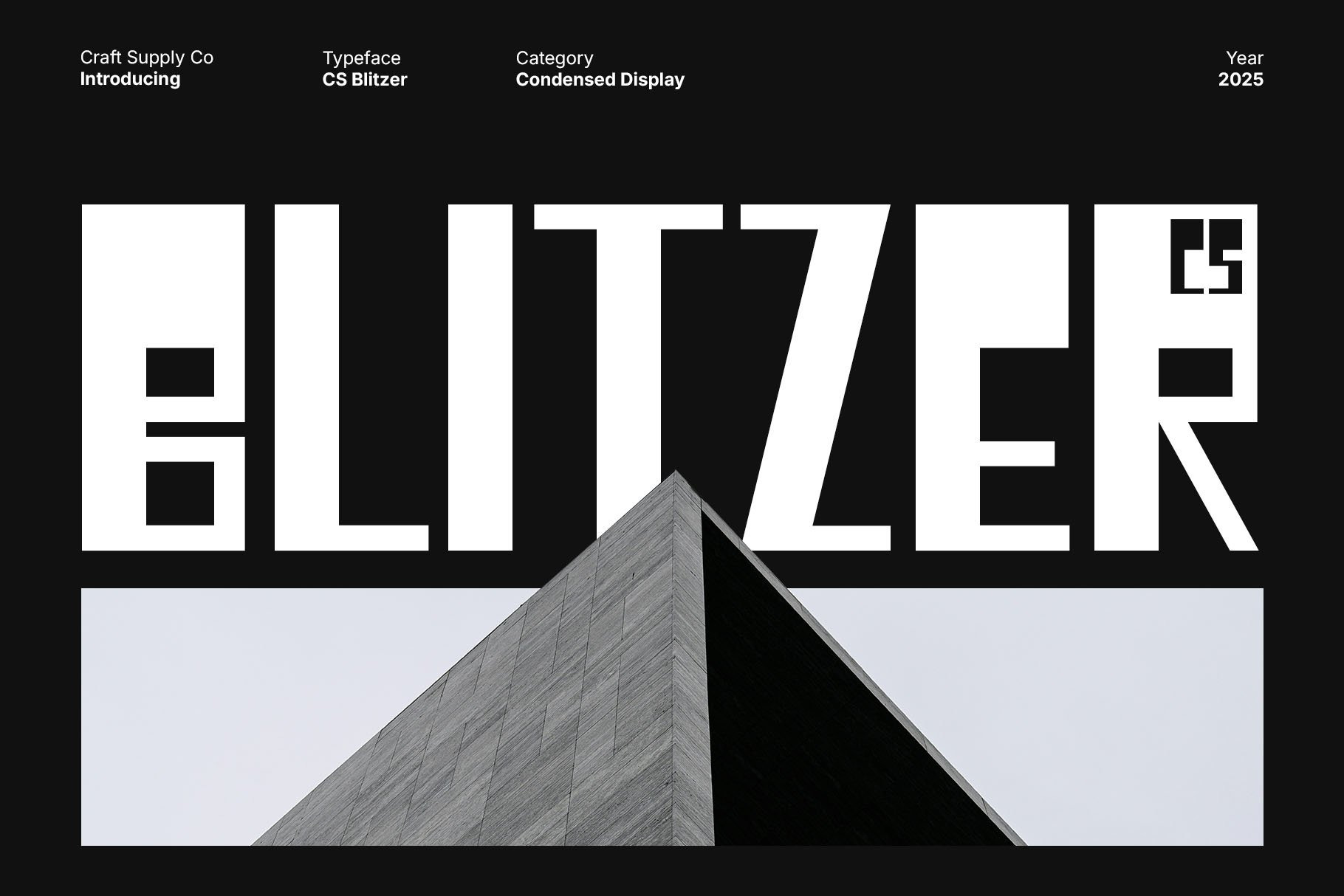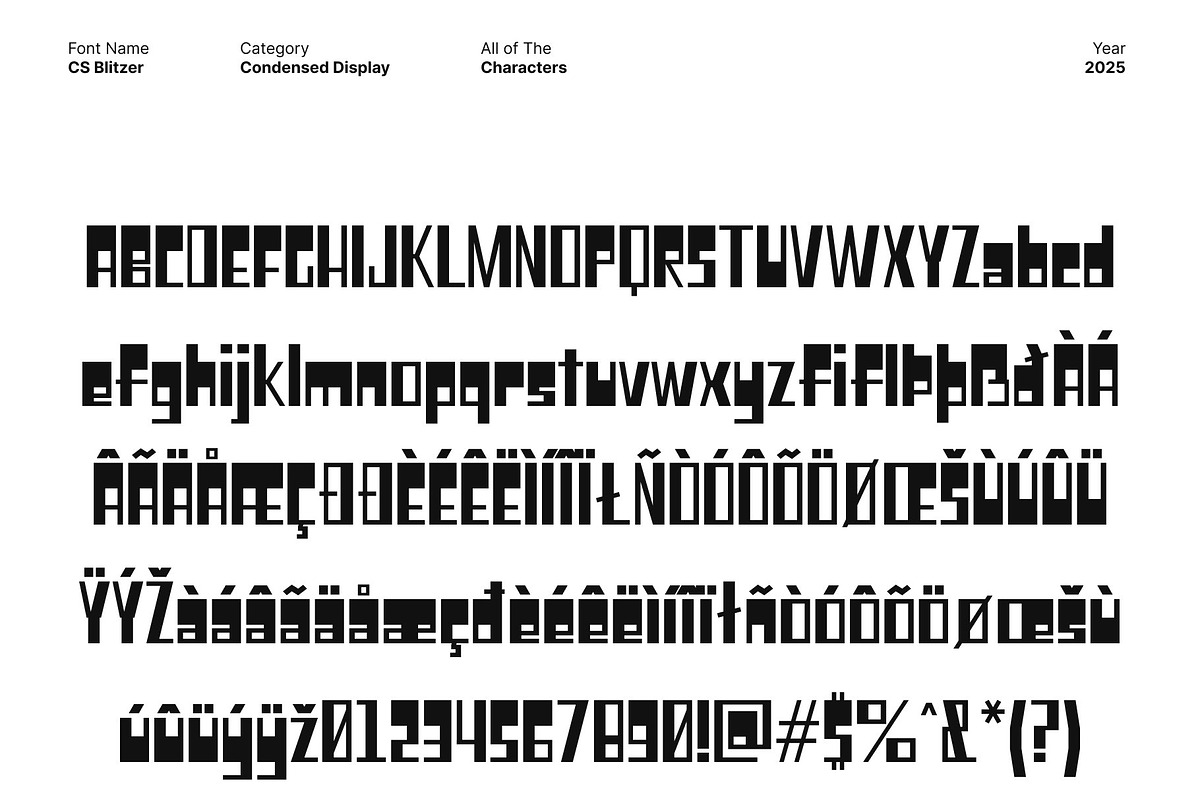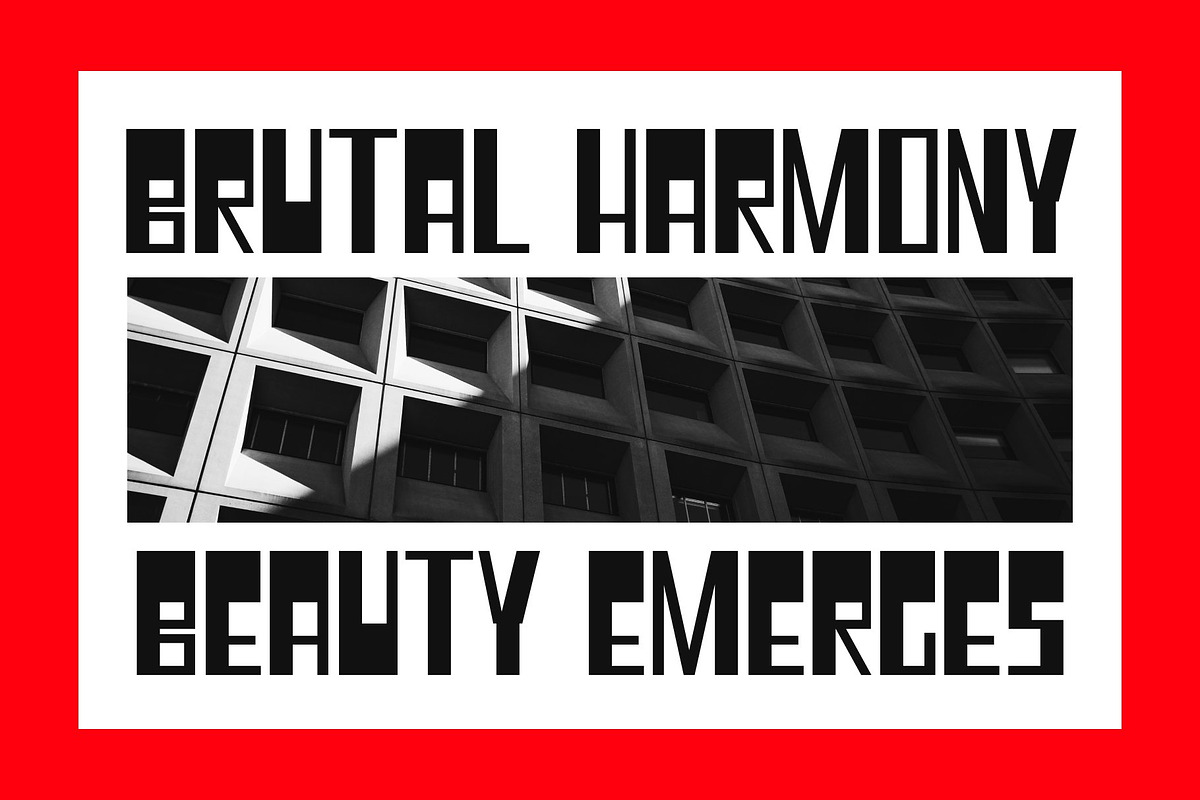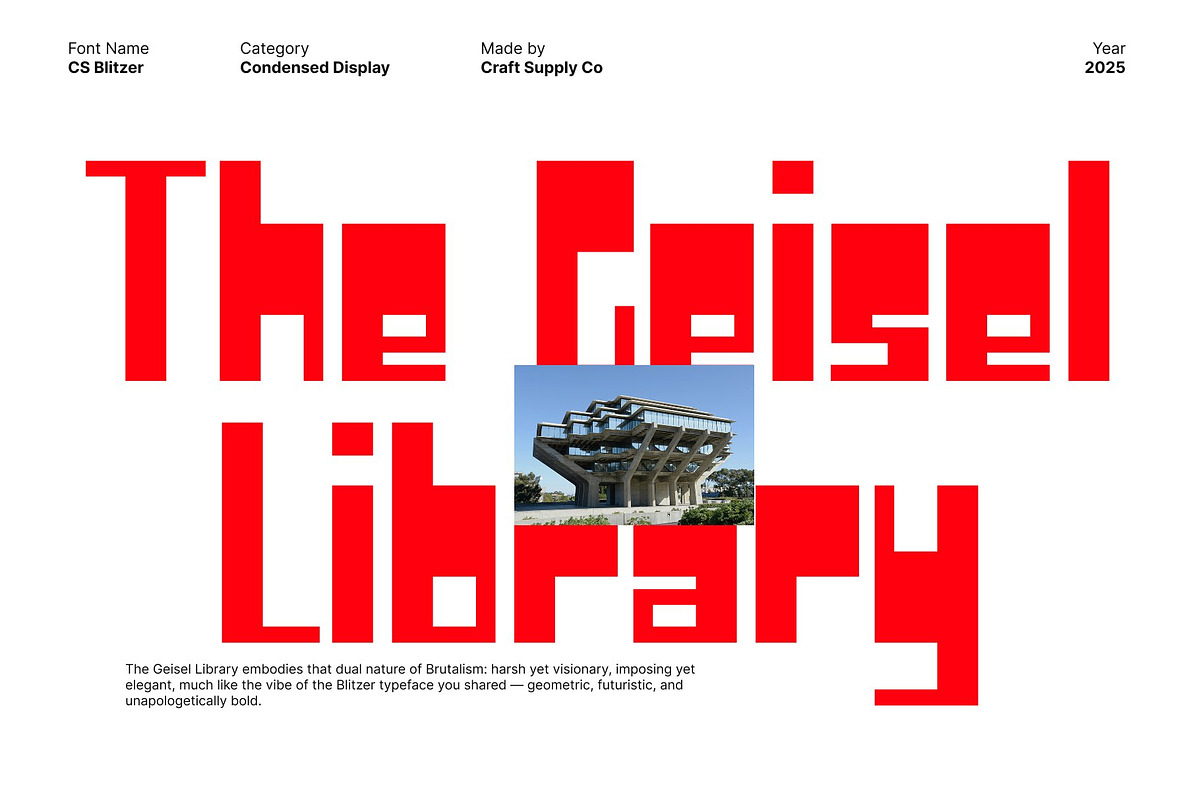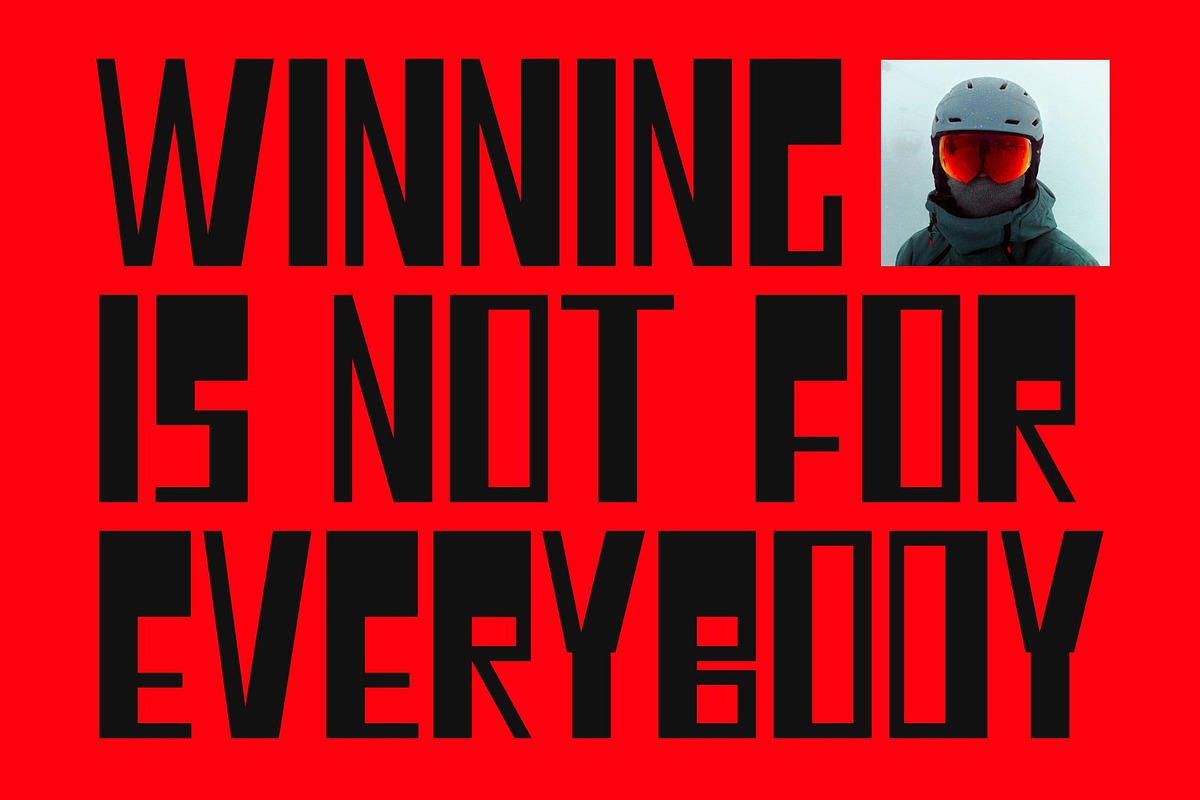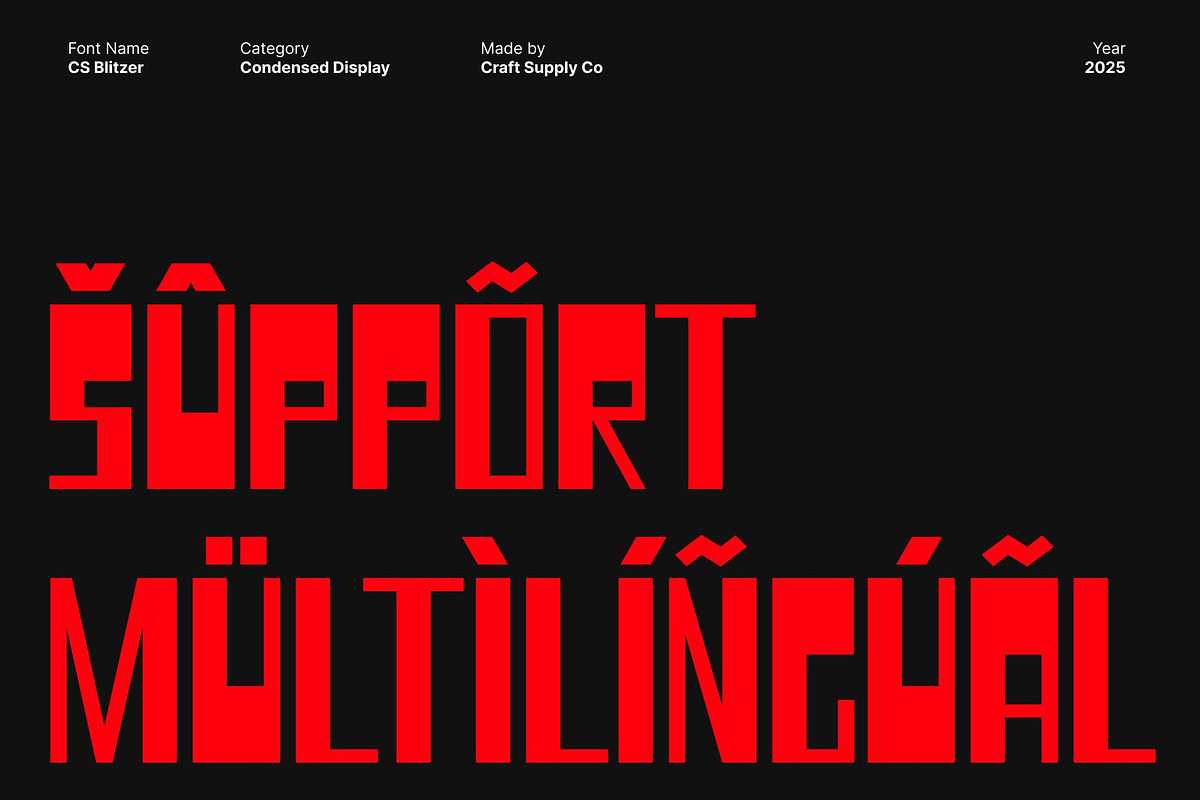
CS Blitzer – Brutalist Display Font
CS Blitzer – Bold Geometry Meets Brutalist Expression
Experimental Sans Serif with a Futuristic Edge This is a stylish and experimental sans serif font that pushes boundaries through its brutalist design and striking visual rhythm. Featuring condensed proportions and reverse contrast, this font challenges traditional typography while maintaining a strong and cohesive structure. This font delivers a bold, modern presence perfect for designers seeking a typeface that stands out with confidence and originality.
Unconventional Geometry for Distinct Character Built on a foundation of geometric precision and creative distortion, this font embodies the raw, architectural essence of brutalism. Each letterform feels intentionally constructed, offering a unique typographic texture that feels both industrial and futuristic. Its reverse contrast creates unexpected visual tension, turning every word into a striking design statement.
Perfect for Editorials and Futuristic Posters Designed for impactful visual storytelling, this font thrives in editorial layouts, futuristic posters, and contemporary graphic design projects. Its sharp edges and condensed form draw attention effortlessly, making headlines, titles, and branding materials feel powerful and modern.
A Typeface for Visionary Designers This font isn’t just a font it’s a design experiment that celebrates creativity and structure in equal measure. Ideal for those who dare to redefine conventional form, this font merges brutalist aesthetics with avant-garde sensibility. Use this font to create work that feels innovative, confident, and unmistakably forward-thinking.